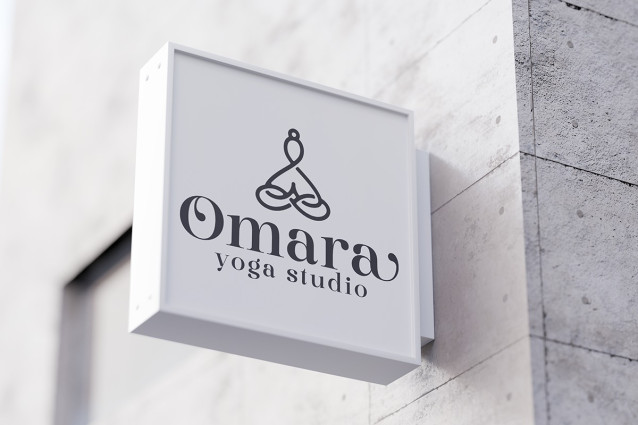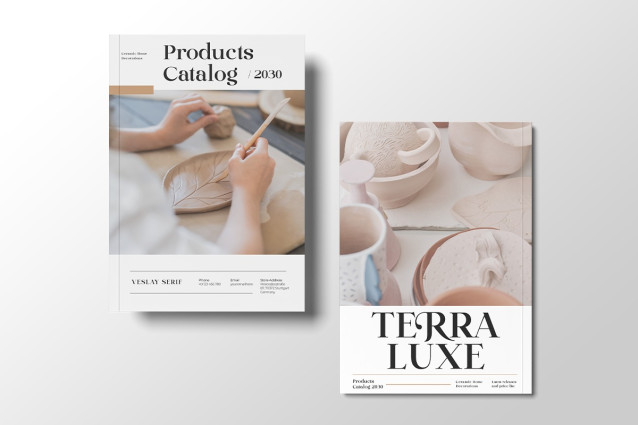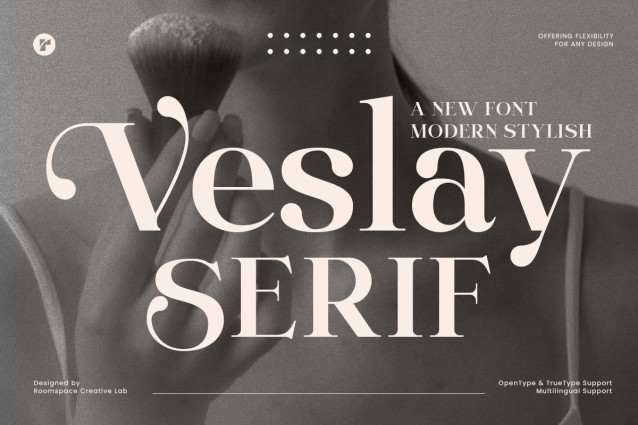
Veslay Font
Vesley Font, a versatile and stylish typeface blending retro and modern aesthetics. Perfect for creating timeless logos, chic branding, and elegant editorial layouts, this font is designed for designers, entrepreneurs, and creators who value boldness with a minimalist touch.
Vesley stands out with its unique alternate characters, intricate swash/tail details, and exceptional readability. Its retro modern charm makes it ideal for fashion projects, wedding invitations, magazine layouts, and even packaging designs. Whether you’re crafting a bold headline or a sophisticated logo, Vesley Serif Font ensures your work leaves a lasting impression.
With its chic serif style, creative typography, and aesthetic appeal, Vesley is the perfect choice for advertising, branding typography, or any project that demands a trendy and luxurious font.